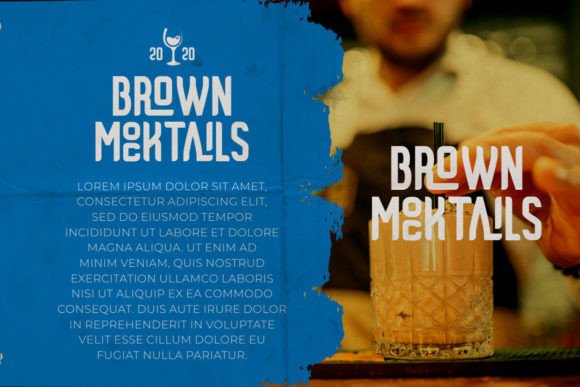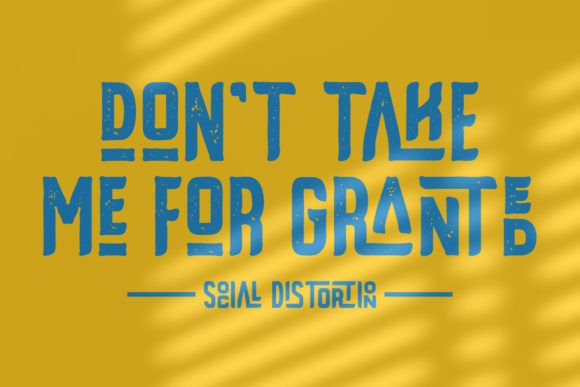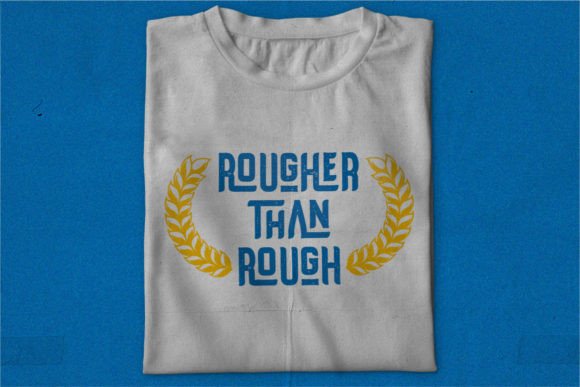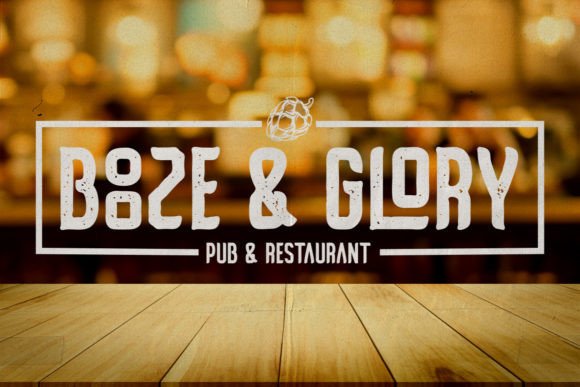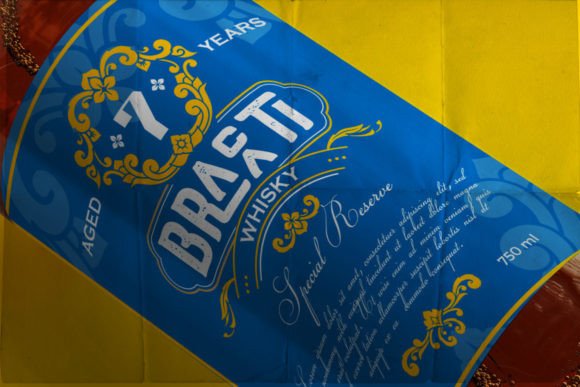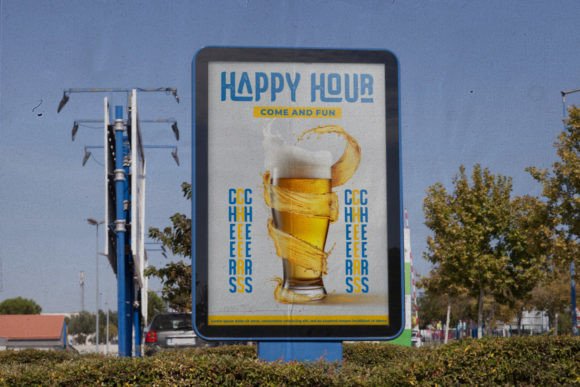
Introduction to Ravera Font
Have you ever been working on a creative project, pouring your heart and soul into it, only to be stuck on finding the perfect font to bring it to life? That’s where the magic of Ravera Font comes in. This stunning display font is designed to elevate your designs and make them truly unforgettable.
As a valuable design resource, Ravera Font offers a unique combination of style and sophistication, making it an ideal choice for designers who want to take their creative projects to the next level. With its high-quality design and transparent background, this font is perfect for adding a touch of elegance to any design.
And the best part? You can access all the glyphs and ligatures with ease, thanks to its PUA encoding. Whether you’re working on a personal project or a commercial design, Ravera Font is sure to be a game-changer. And the best part? You can download it for free, making it a must-have in your design arsenal.
Key Features of Ravera Font
- Ravera Font is a free design resource ideal for creative projects requiring a high-quality font.
- This font features a transparent background, allowing for seamless integration with any design or image.
- The font comes in a single weight, making it perfect for simple and clean typography in design projects.
- It supports a wide range of languages, making it a versatile design resource for global creative projects.
Honest Review: Ravera Font
As a designer, I’m always on the lookout for high-quality design resources to elevate my creative projects. Recently, I had the chance to work with the Ravera Font, and I’m excited to share my honest review with you.
What works well: ✨ The Ravera Font is a versatile and modern sans-serif typeface that’s perfect for a variety of design projects. I love its clean lines, open feel, and the way it reads well on both screen and print. It’s also available for free download, making it a fantastic addition to any designer’s toolkit.
- Perfect for creative projects requiring a modern sans-serif typeface
- Works well on both screen and print
What’s not so great: ⚠️ One limitation of the Ravera Font is that it doesn’t include a transparent background option, which can make it tricky to use in some design scenarios. However, this is a minor complaint, and the font’s strengths far outweigh its weaknesses.
Overall impression: I’m thoroughly impressed with the Ravera Font, and I’d highly recommend it to any designer looking for a high-quality, modern sans-serif typeface. Its versatility, clean design, and free download make it an excellent addition to any design resource library.
Ravera Font
With Ravera Font, you can create stunning designs for social media, posters, and more.
With Ravera Font, you can create high-quality designs for logos, brochures, and more.
With Ravera Font, you can create professional-looking presentations and documents.
- Use Ravera Font with a transparent background for a clean and modern look.
- Combine Ravera Font with other design elements for a unique and creative look.